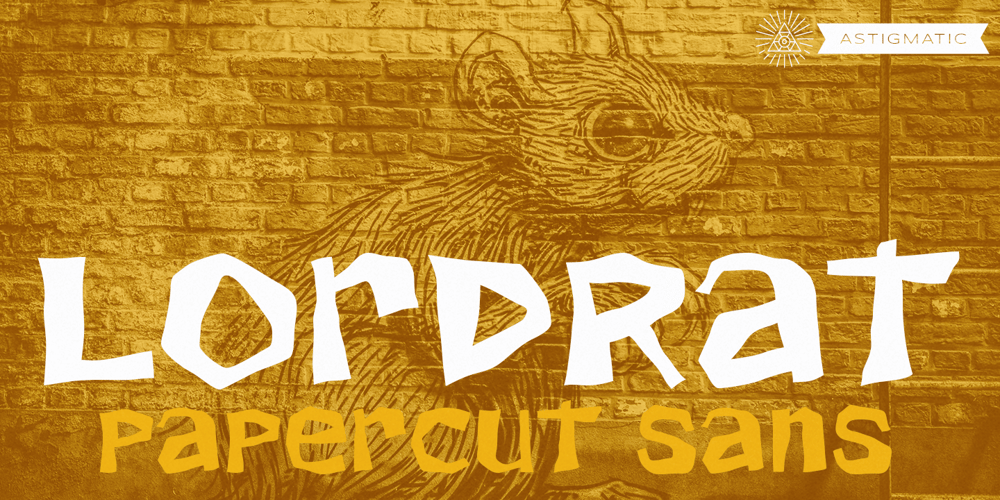
Lord Rat AOE
Lord Rat AOE font
Lord Rat AOE Font Family was designed by Brian J. Bonislawsky and published by Astigmatic. Lord Rat AOE contains 1 styles and family package options. LordRat is a rugged unicase typestyle built for childish and off kilter purposes. A mix of heavy and light with quickcut appearance makes this typestyle offbeat and even festive. Put some dignified childish offbeat flavor into your designs today with LordRat. If you’ve been looking for a playful yet bold typestyle with papercut looks, LordRat is what you’ve been looking for. Get it today!